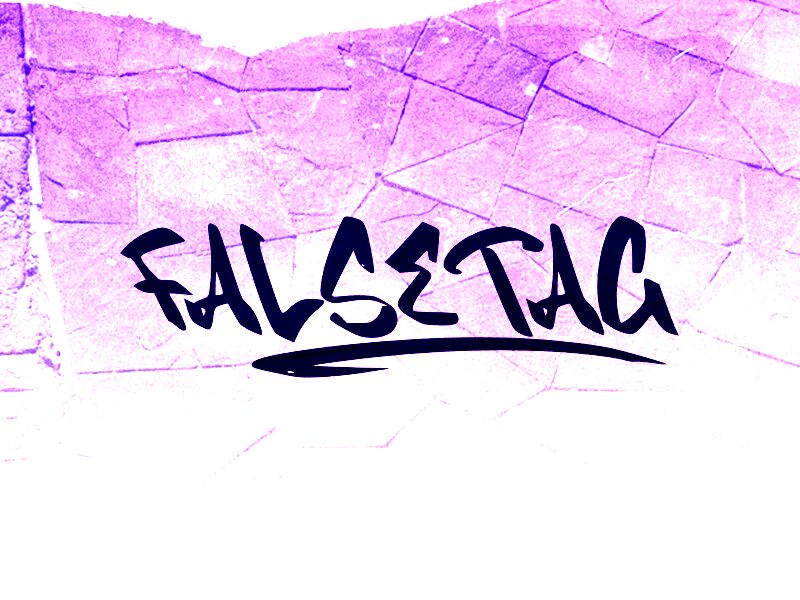
FALSETAG_
Falsetag font designed by wep is an expressive display typeface with an artistic feel. Combining extremely rounded letters with less smooth ones, the design has a handcrafted and organic feel. To increase visual interest, the font’s creator also added letter extensions and holes which interfere in a positive way with the overall look of each glyph. The diversity of sizes, shapes, and decorations enhance this already incredible trendy choice.
This free graffiti font works well in labels, packaging designs, branding material like logos and logotypes as well as social media posts. It can also be used for creating book covers or movie posters related to urban culture or street art. Other interesting experimental usages include apparel design along other textile oriented projects such as wrapping papers or wallpaper designs for teenagers’ rooms.